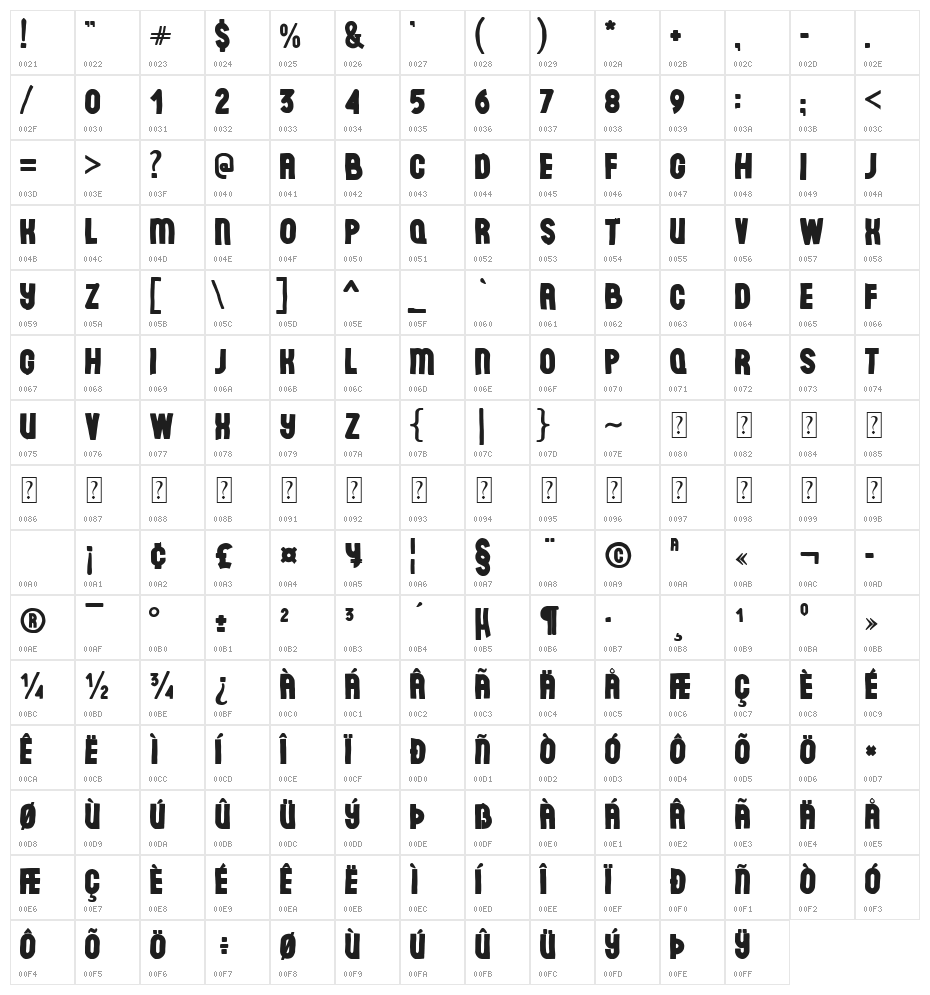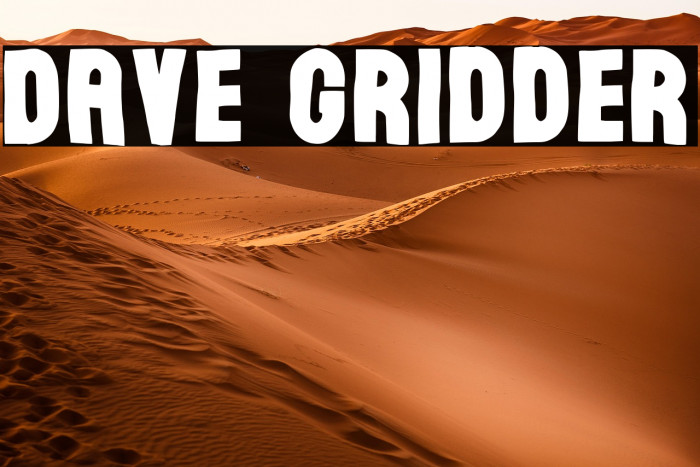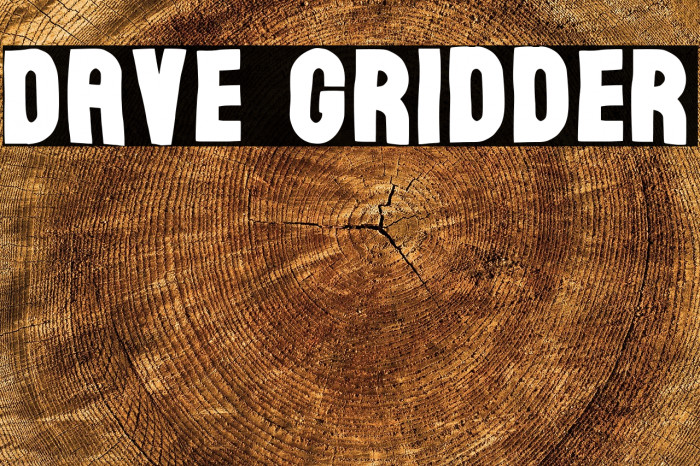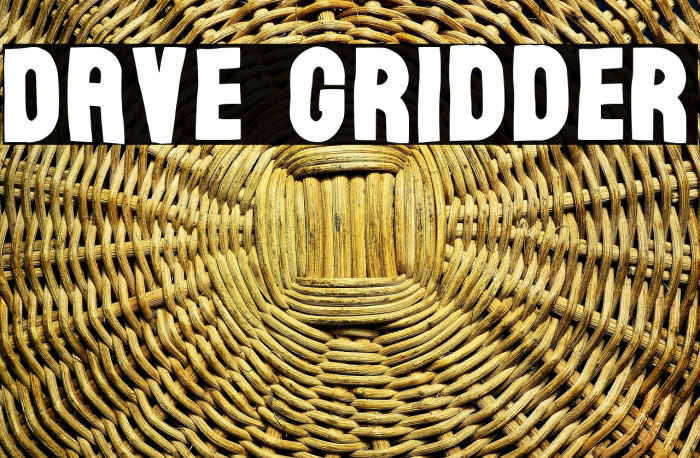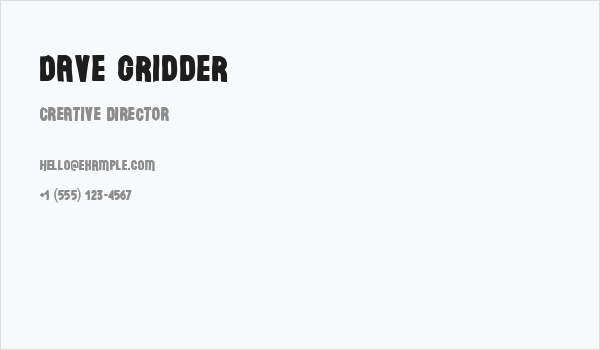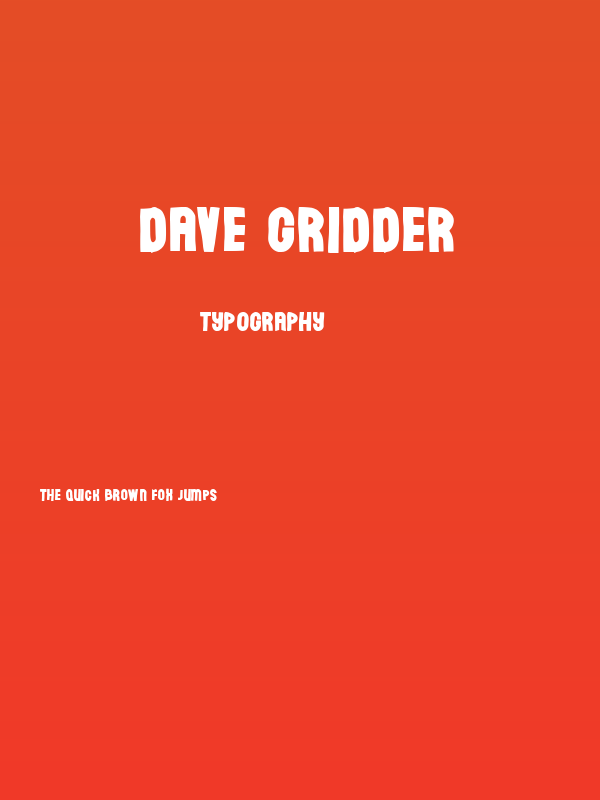
Dave Gridder Font
✎ Distorted Eroded
| Stile generale | Playful, Whimsical |
| Caso d'uso | Headlines, Posters, Branding |
| Progetti proposti | Ideal for children's books, playful branding, posters, and creative social media graphics. |